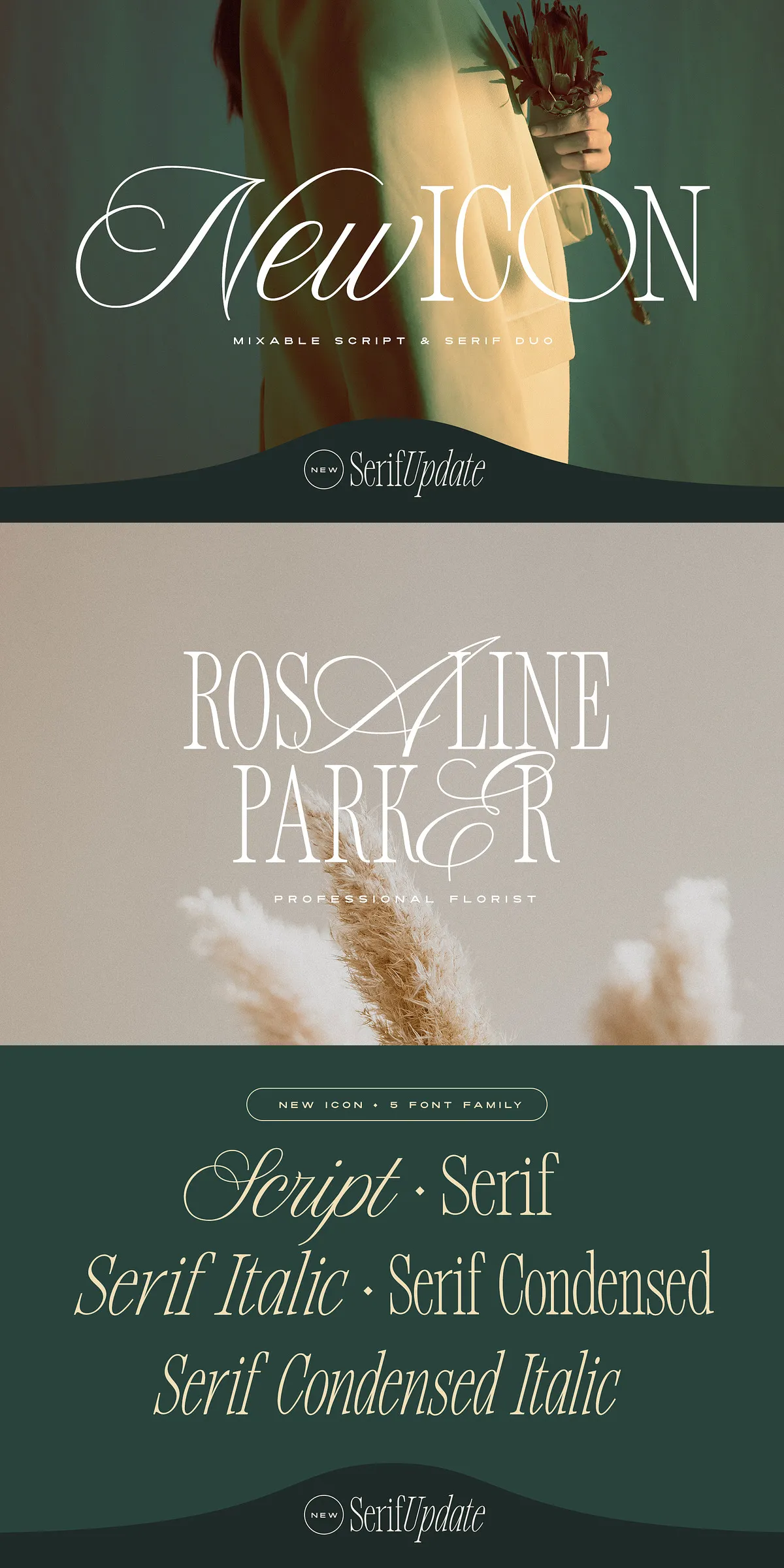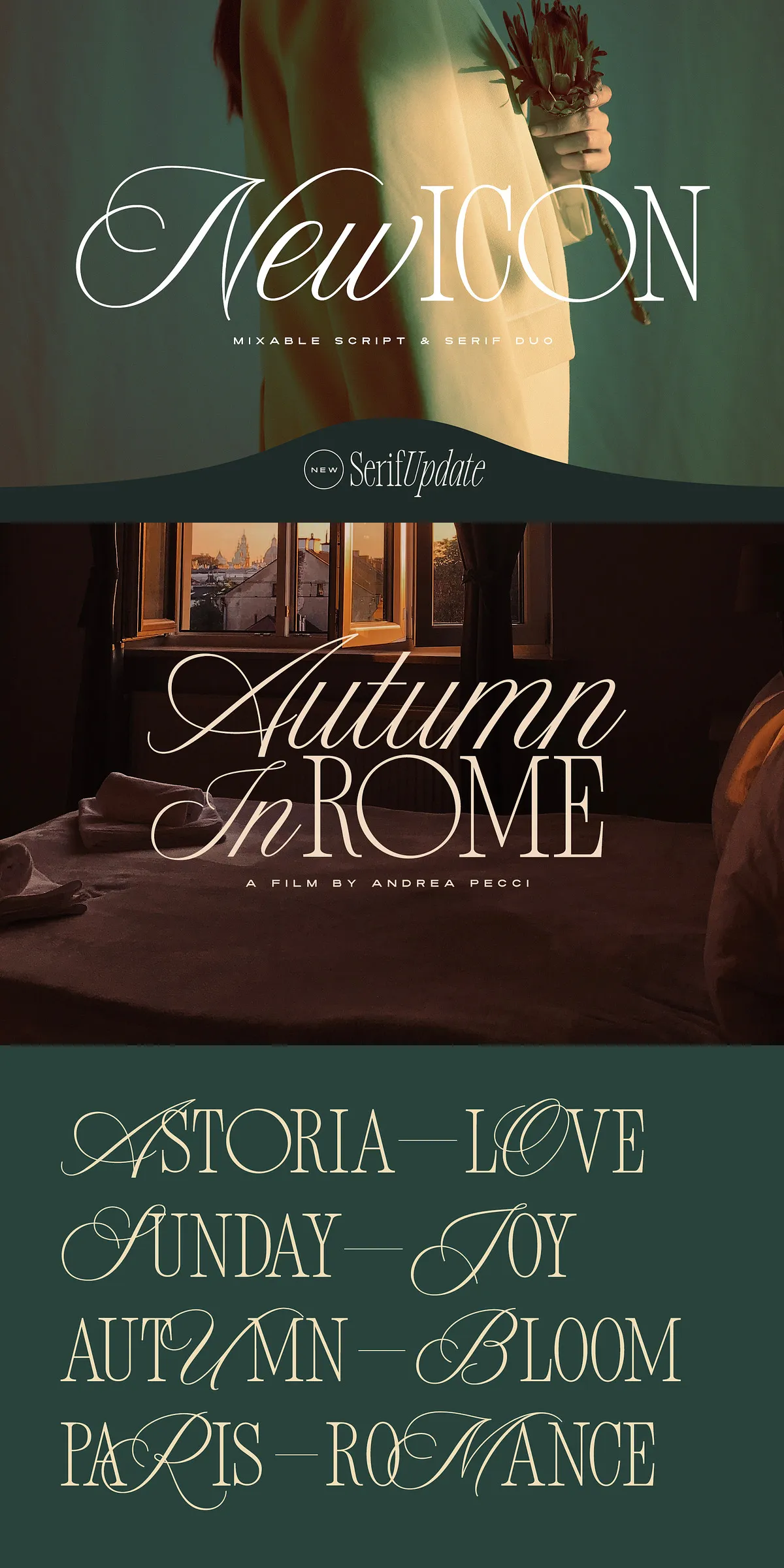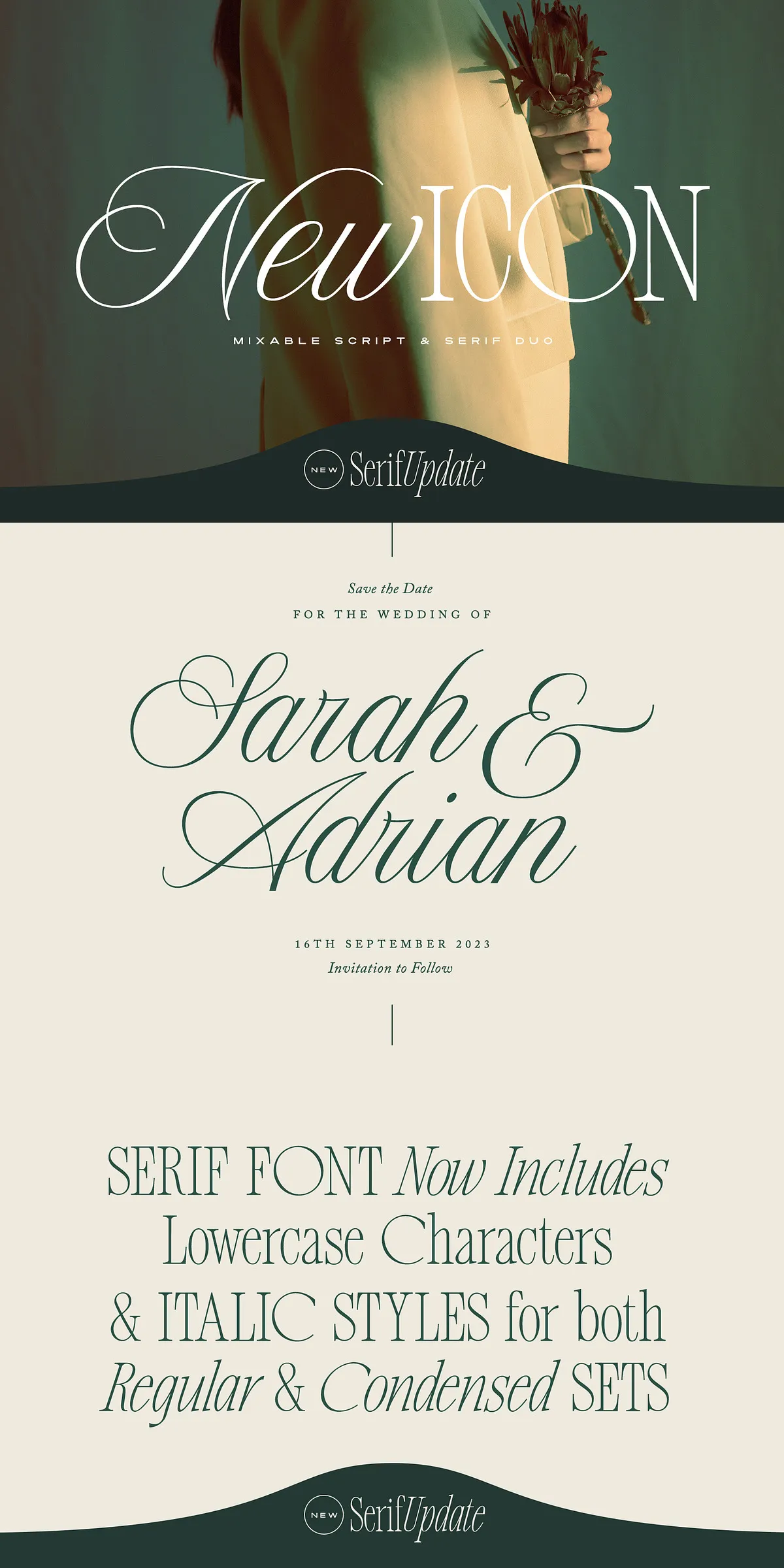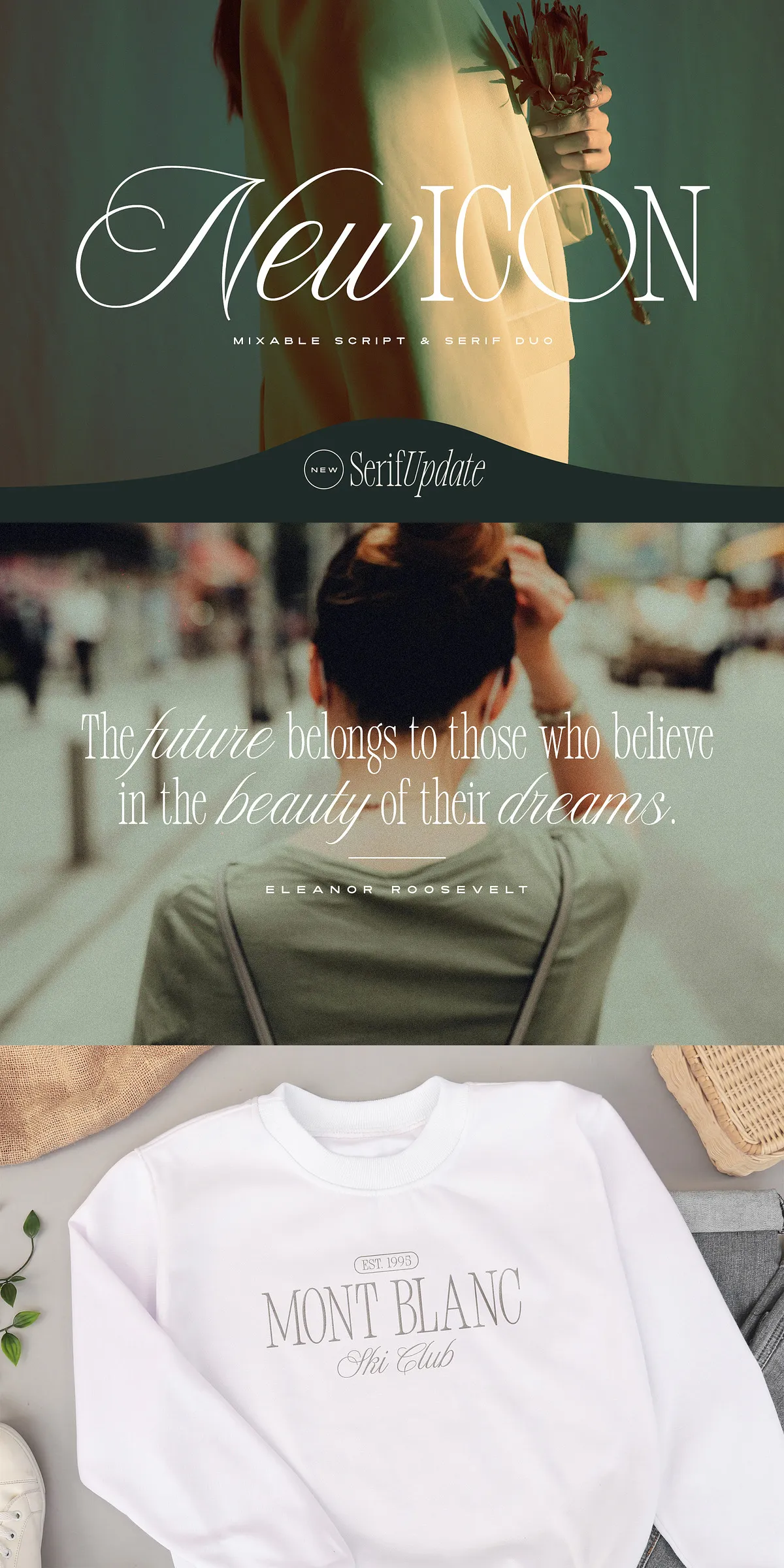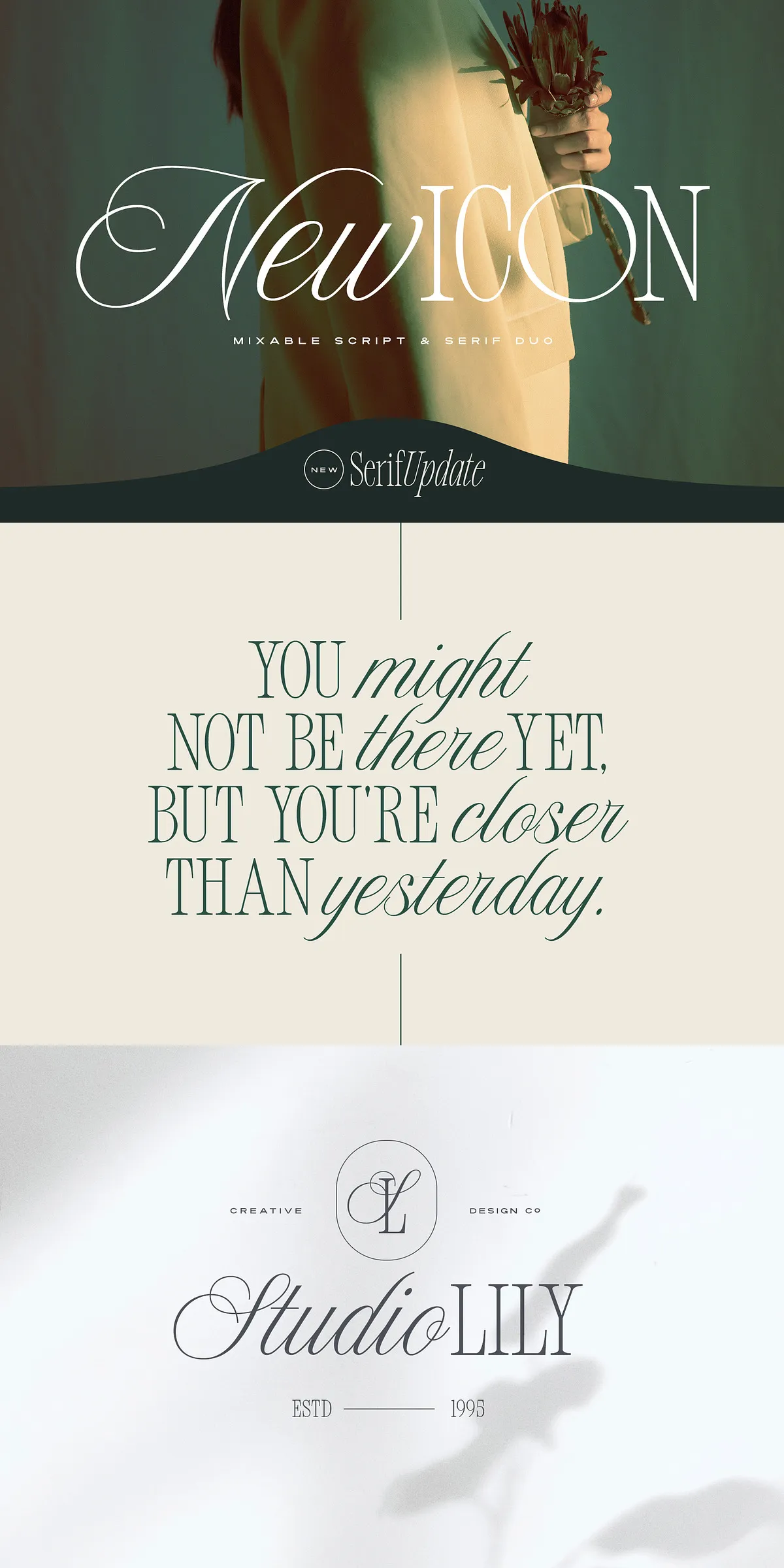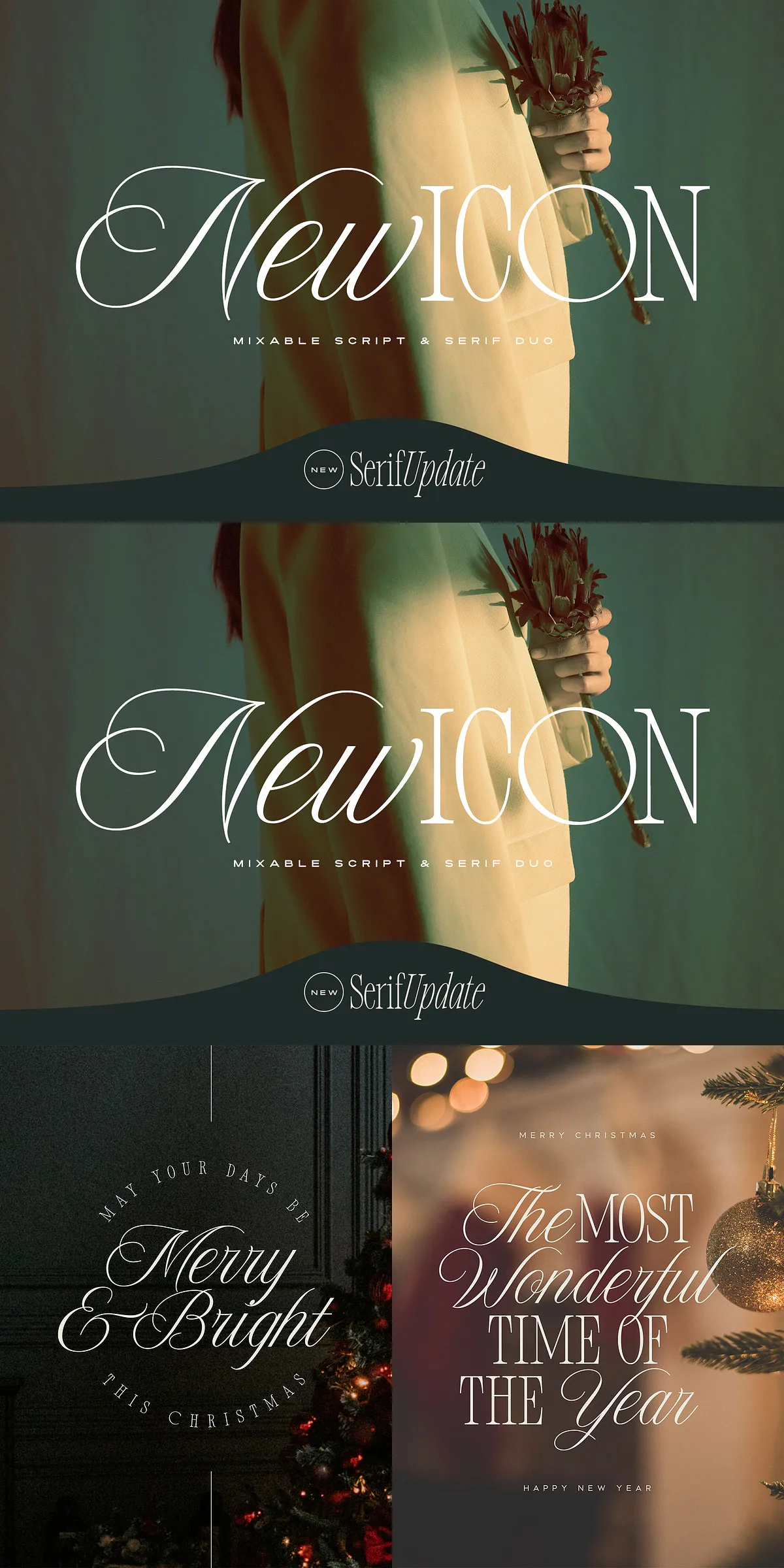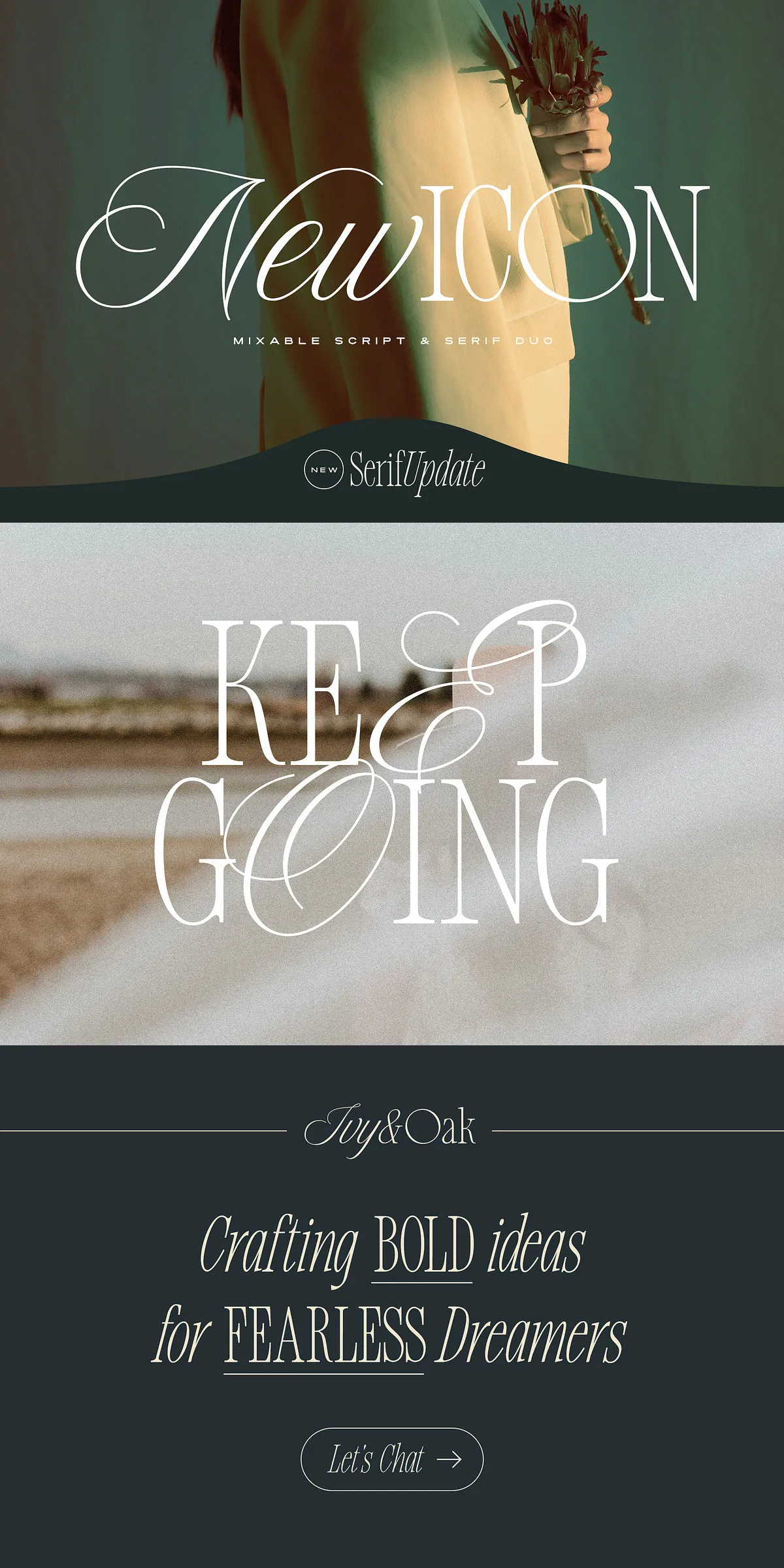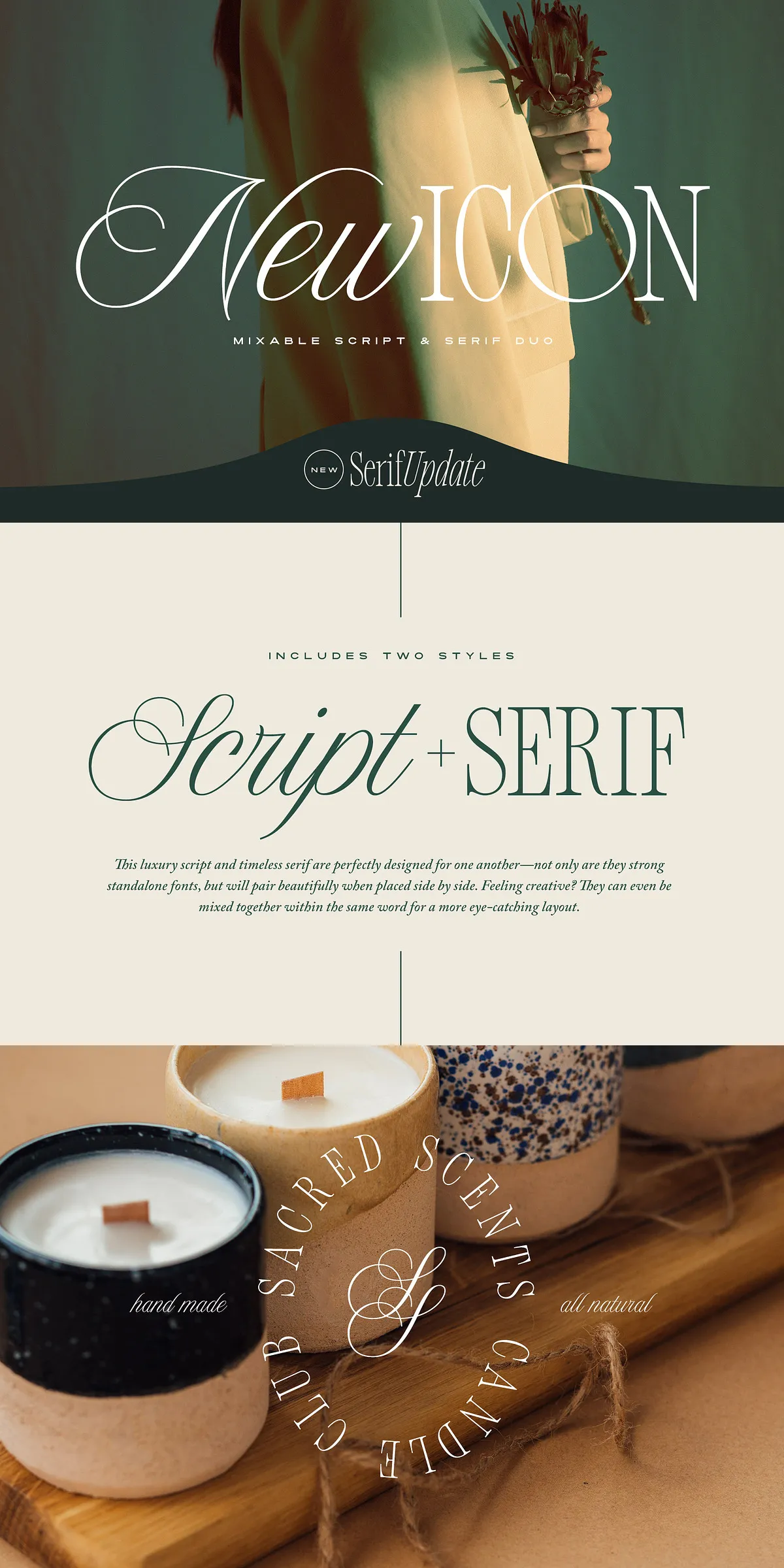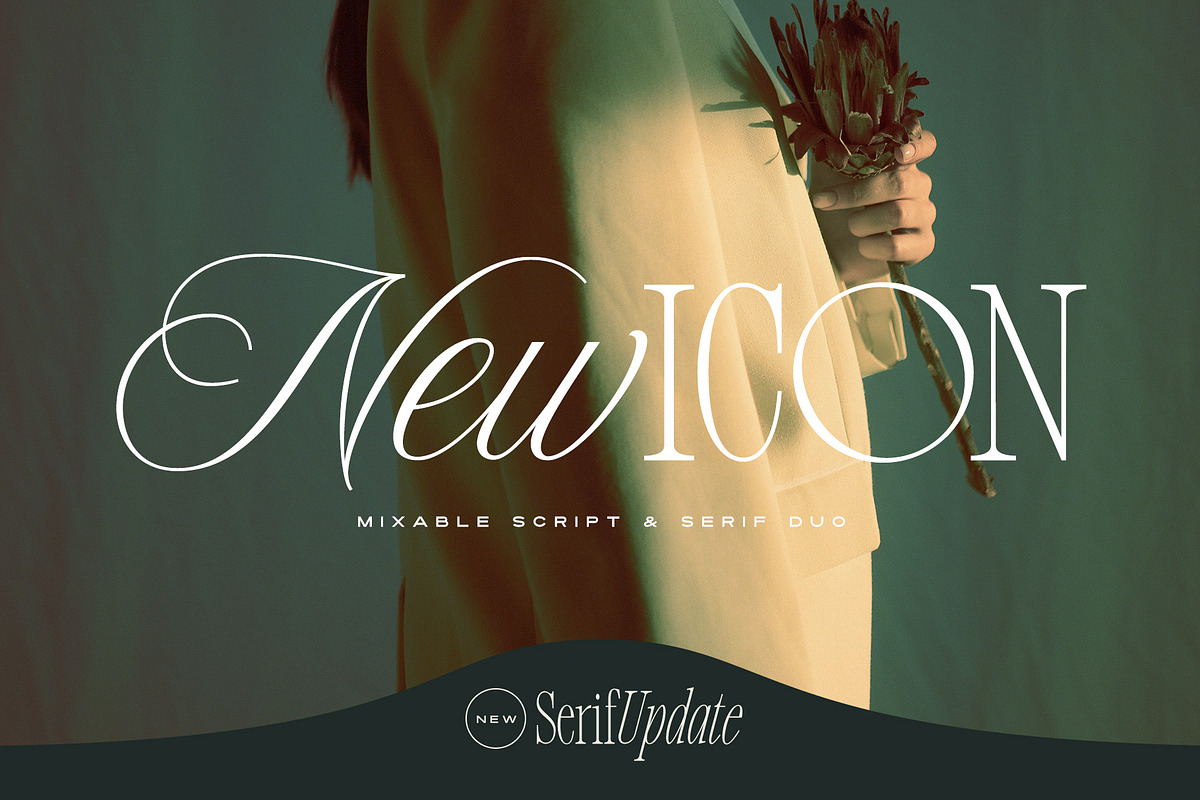
New Icon Font Duo (Updated!)
The New Icon Font Duo represents a fresh, elegant approach to typography by merging a luxury script with a classic serif font designed to complement each other perfectly. These fonts not only work as strong, standalone choices but also create visually striking pairings when used side by side. The unique ability to blend these fonts within the same word offers designers unmatched flexibility and creativity, enabling the creation of bold and sophisticated layouts that elevate any project.
Distinct Fonts Designed to Work Harmoniously Together
New Icon Serif: Classic Elegance with Modern Versatility
The New Icon Serif is a classic, all-caps serif font with an air of nostalgia fused with modern simplicity. It carries alternate large-width characters for select letters such as O, G, Q, and C, adding subtle variations to enhance design appeal. This font’s timeless style lends itself perfectly to sophisticated branding, editorial headlines, and luxury packaging. With the recent update, it now includes lowercase letters and italic versions for the regular and condensed sets, further expanding its utility in diverse typographic compositions.
New Icon Serif Condensed: Sleek and Compact Options
For projects requiring a slimmer and more compact appearance, the New Icon Serif Condensed offers a refined thinner version of the original serif font. It shares the same stylish characteristics and additional alternates, making it an excellent choice where space efficiency is crucial, all while maintaining the font family’s established elegance.
New Icon Script: Luxurious Calligraphic Flair
The New Icon Script brings a beautifully crafted cursive style to the font duo. This font, inspired by traditional calligraphy, includes both uppercase and lowercase characters and features stylistic alternates such as elongated tails on the lowercase y and g, which add an artistic flourish when enabled. This luxurious script blends effortlessly with the serif fonts, enriching any design with a refined and graceful handwritten effect that elevates wedding invitations, branding materials, and editorial projects.
Comprehensive Font Family with Recent Expansions for Greater Flexibility
The New Icon font family has recently been updated to include a full set of lowercase characters and italic styles for both the Regular and Condensed serif fonts. This evolution has broadened the family to five essential fonts: Script, Serif Regular, Serif Italic, Serif Condensed, and Serif Condensed Italic. These expanded options empower designers to mix and match styles seamlessly within projects, driving versatility and creativity to new heights.
Practical Features for Professional Design Use
• Multiple alternates and stylistic sets increase customization potential.
• Pairing options to blend script and serif fonts in a single composition.
• Supports both uppercase and lowercase usage in serif fonts for flexible typography.
• Italic versions enhance text contrast and visual interest.
Designed for Diverse Creative Applications
Whether designing luxury branding, editorial spreads, wedding invitations, packaging, or promotional materials, the New Icon Font Duo provides a dynamic and stylish typographic solution. Its ability to function both independently and together allows it to serve a variety of design needs where sophistication and flexibility are paramount.
Why Choose New Icon Font Duo for Your Typography Needs
The New Icon Font Duo delivers a rare combination of luxury script elegance and dependable serif strength, allowing designers to create engaging, professional typography with enhanced creative freedom. Its thoughtful design, expanded stylistic range, and robust language support make it a top choice for anyone seeking to elevate their work with fonts that are as versatile as they are beautiful.